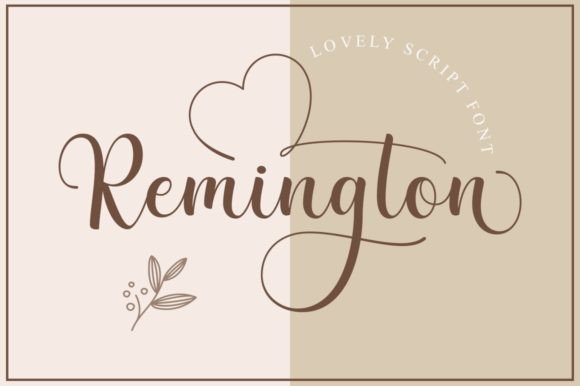
Introducing the exquisite Remington Font, a script font created by the talented Fadlilah Studio. With its delicate, elegant, and flowing handwritten style, this font is bound to captivate your senses and elevate your designs to new heights.
Are you in search of the perfect font for your beauty salon? Look no further! Remington Font is the ultimate choice for creating stunning and eye-catching designs that will leave a lasting impression on your customers. Its timeless appeal and unique charm make it the best font for beauty salons.
What sets Remington Font apart is its incredibly distinct and graceful strokes, which effortlessly blend together to create a harmonious and refined look. Each letter is meticulously crafted to exude elegance and sophistication, making it ideal for logos, branding, packaging, and more.
Not only does Remington Font offer aesthetic appeal, but it also provides practicality. With its PUA encoding, accessing all the glyphs and swashes is a breeze. Unleash your creativity and embellish your designs with the multitude of decorative elements available at your fingertips.
Let your imagination run wild as you explore the versatility of Remington Font. Whether you're designing invitations, posters, social media graphics, or any other creative project, this font will add a touch of class and allure. Its versatility allows it to seamlessly adapt to various themes and concepts, making it a must-have tool for any designer.
Embrace the power of Remington Font and witness the magic it brings to your designs. Its timeless beauty will never go out of style, ensuring that your creations stand the test of time. With Remington Font, you have the power to create truly breathtaking and unforgettable designs that leave a lasting impression.